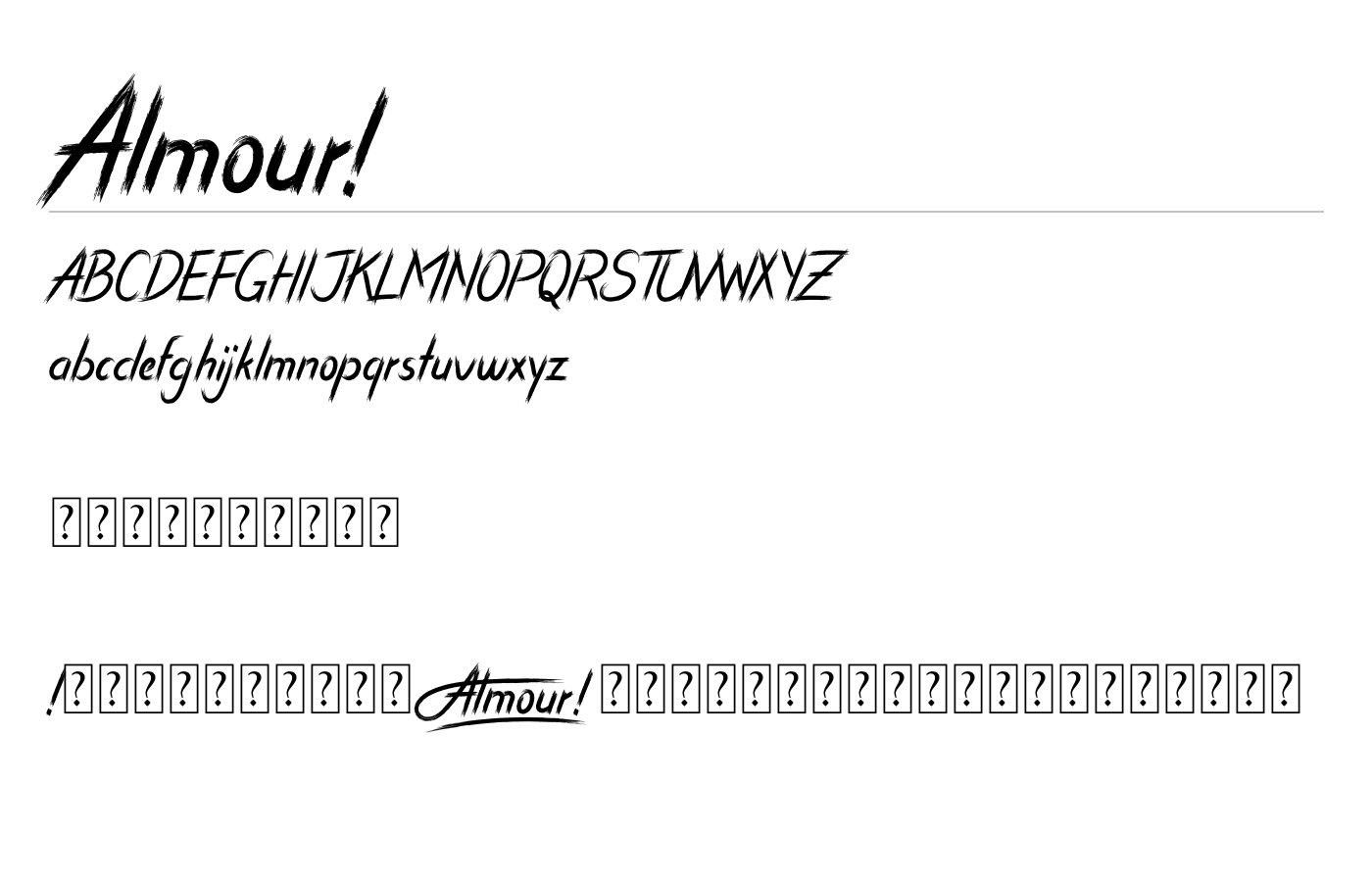
Almour! is a dynamic handwritten font with a bold, brushstroke style that conveys energy and creativity. Its sharp, irregular edges and varying stroke widths give it a raw, expressive feel, perfect for designs that want to make a strong, artistic statement. This font is ideal for posters, logos, or any visual work that benefits from an edgy, hand-crafted look.
Almour! Font